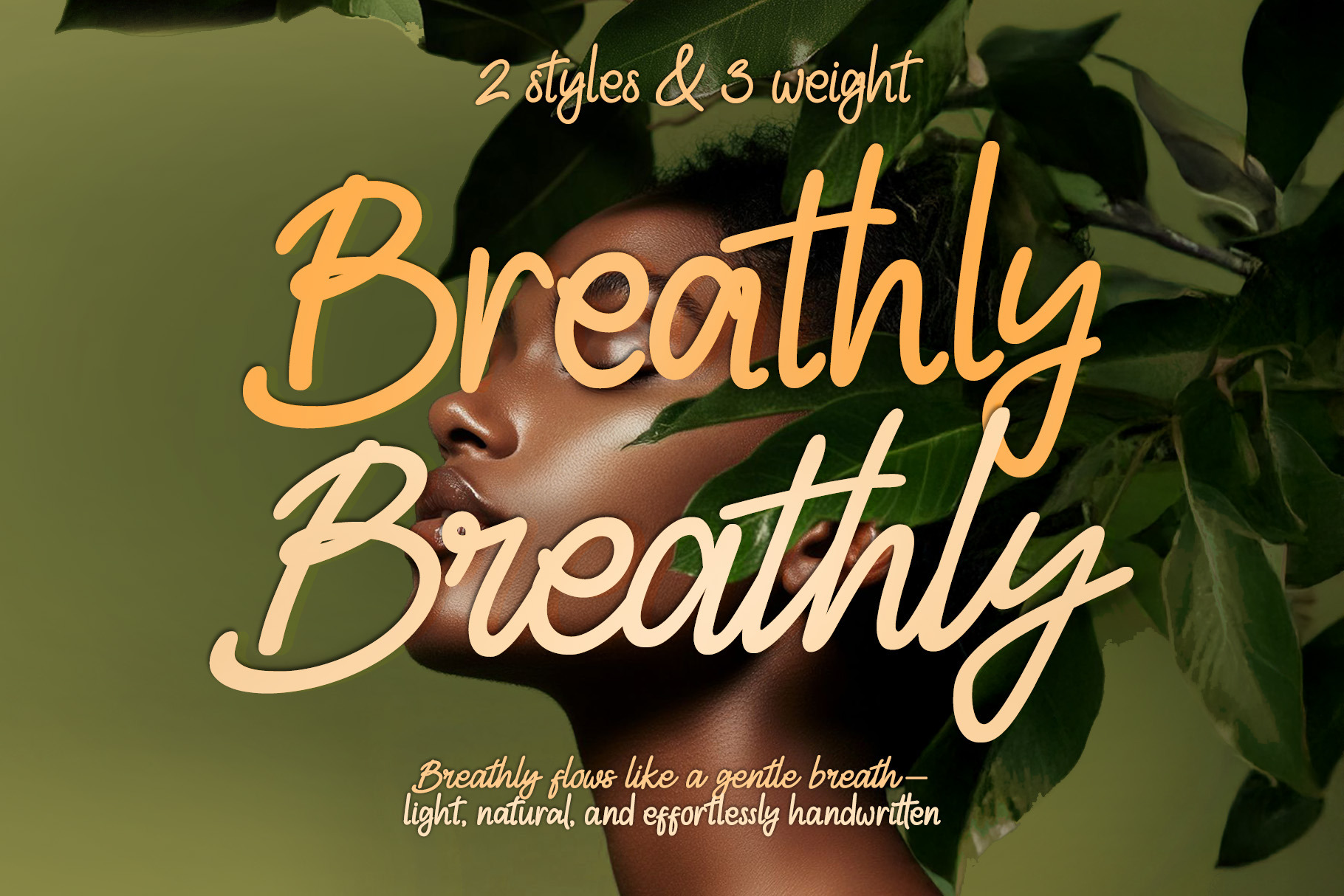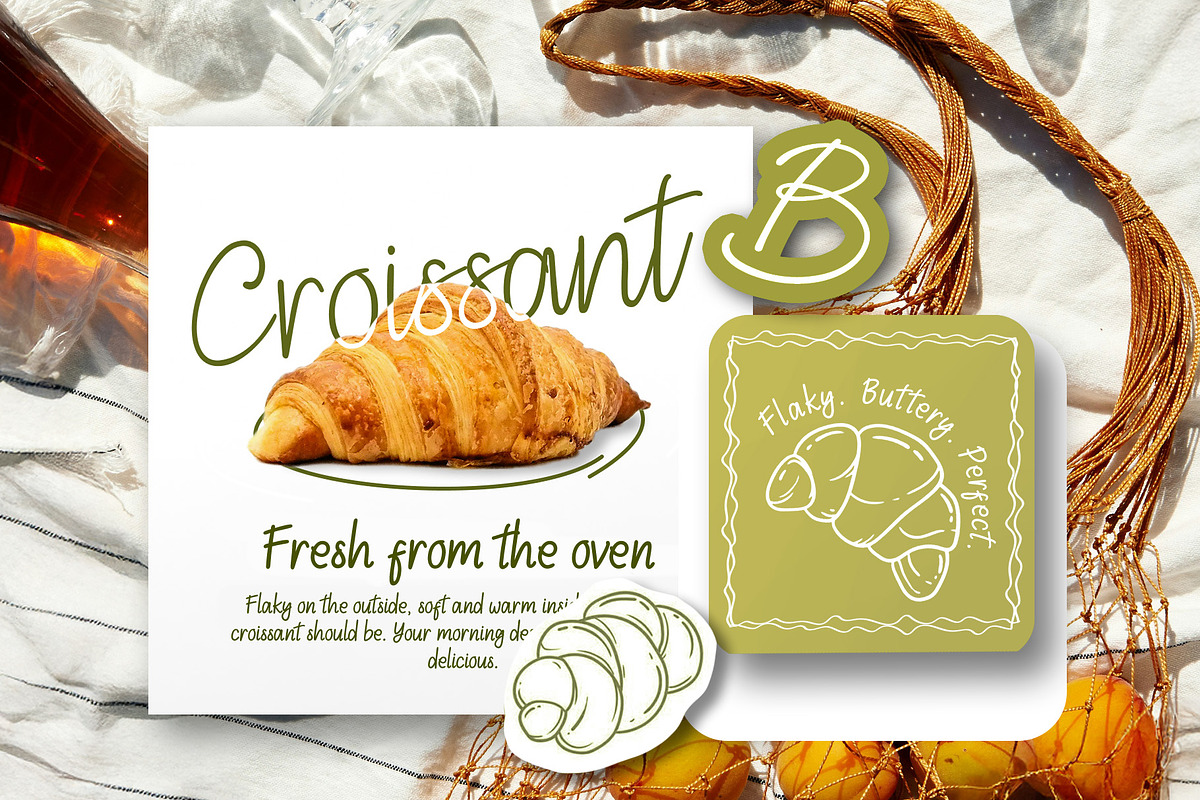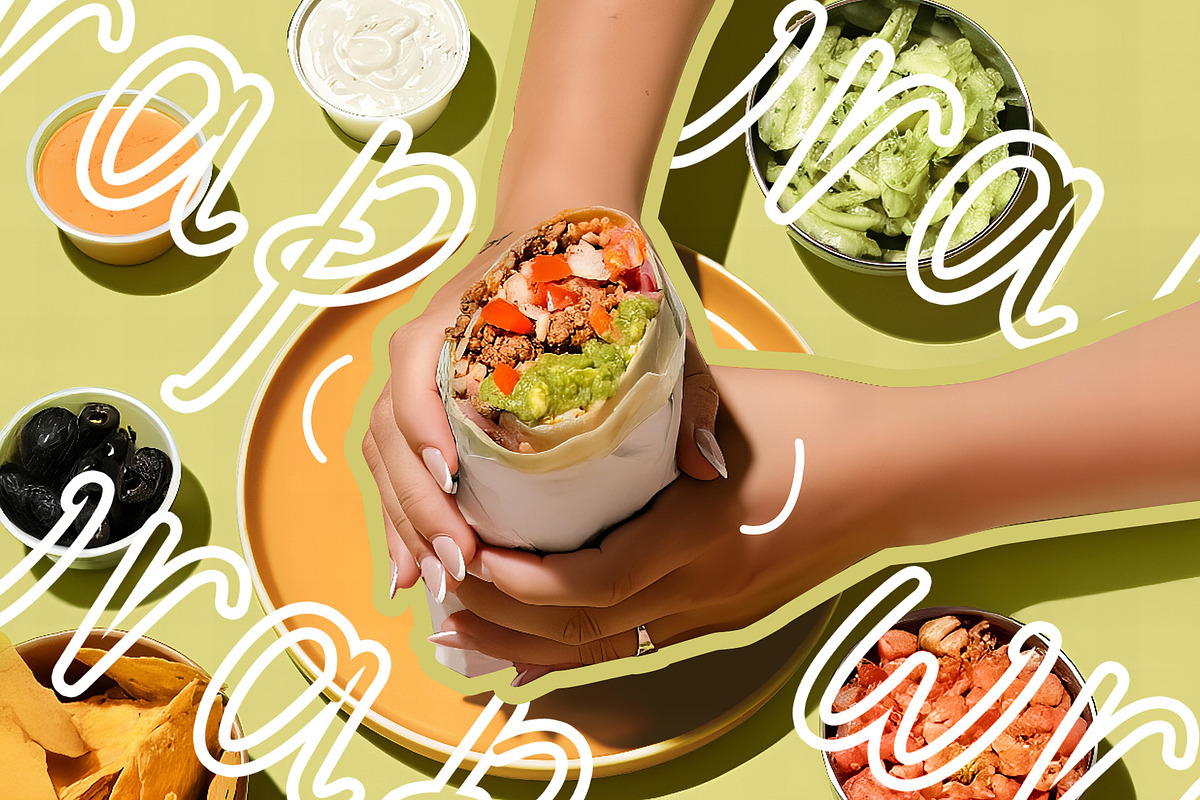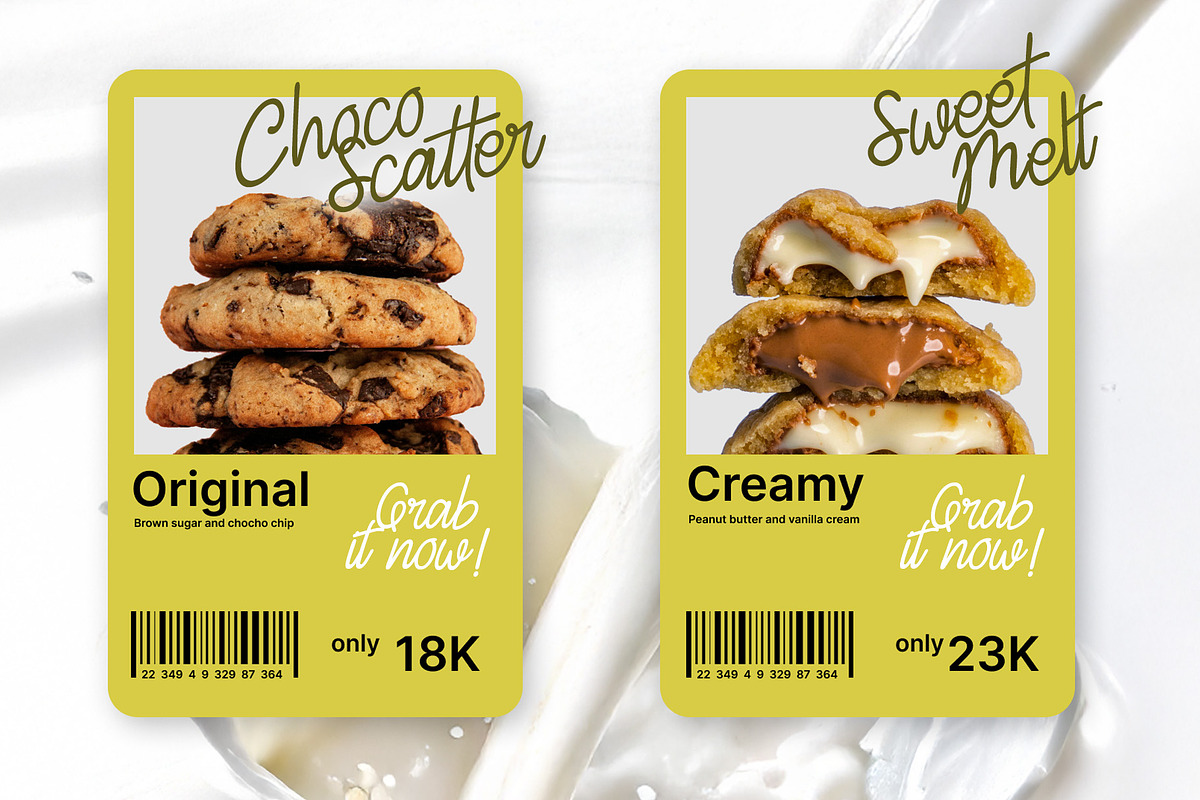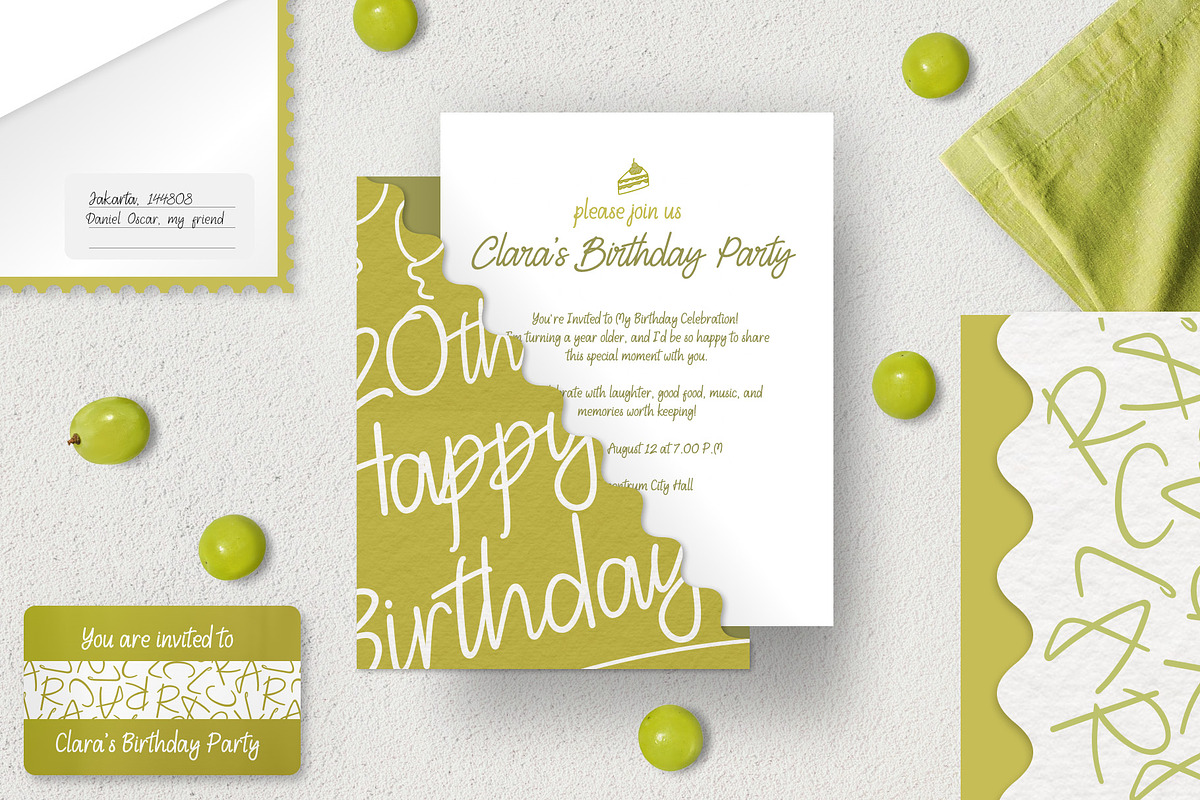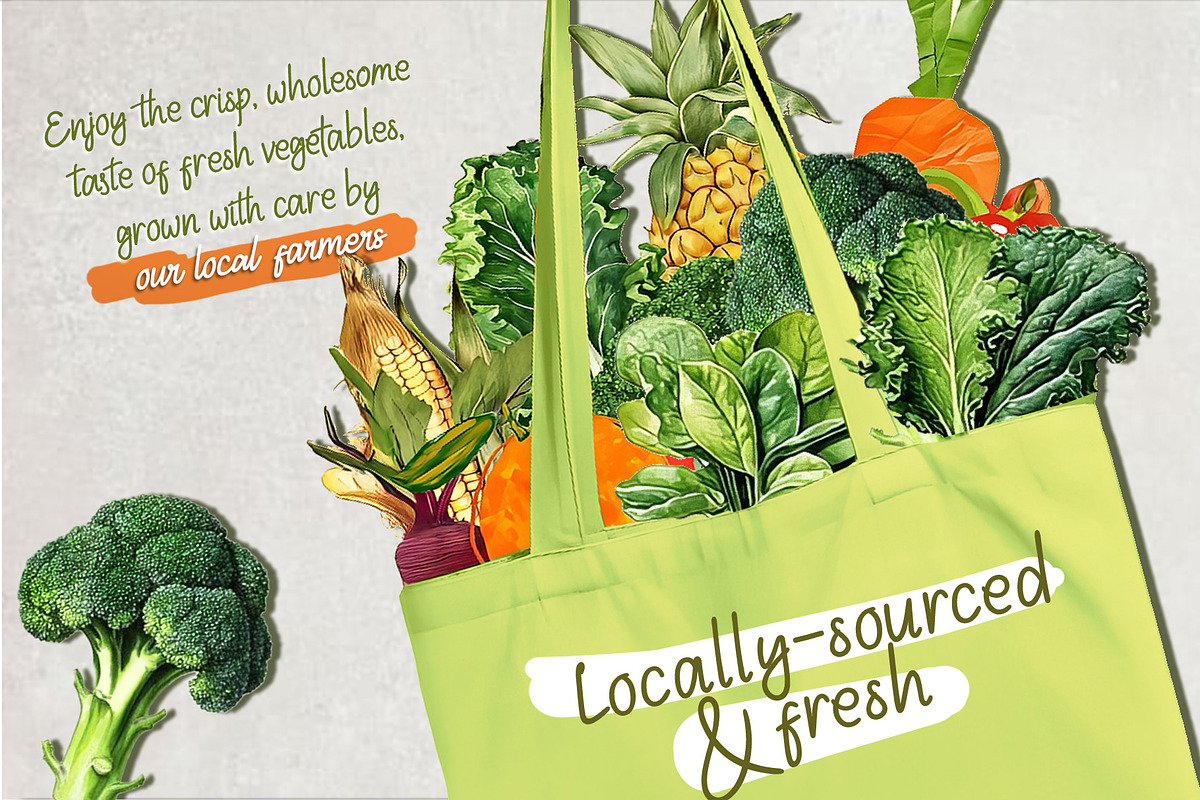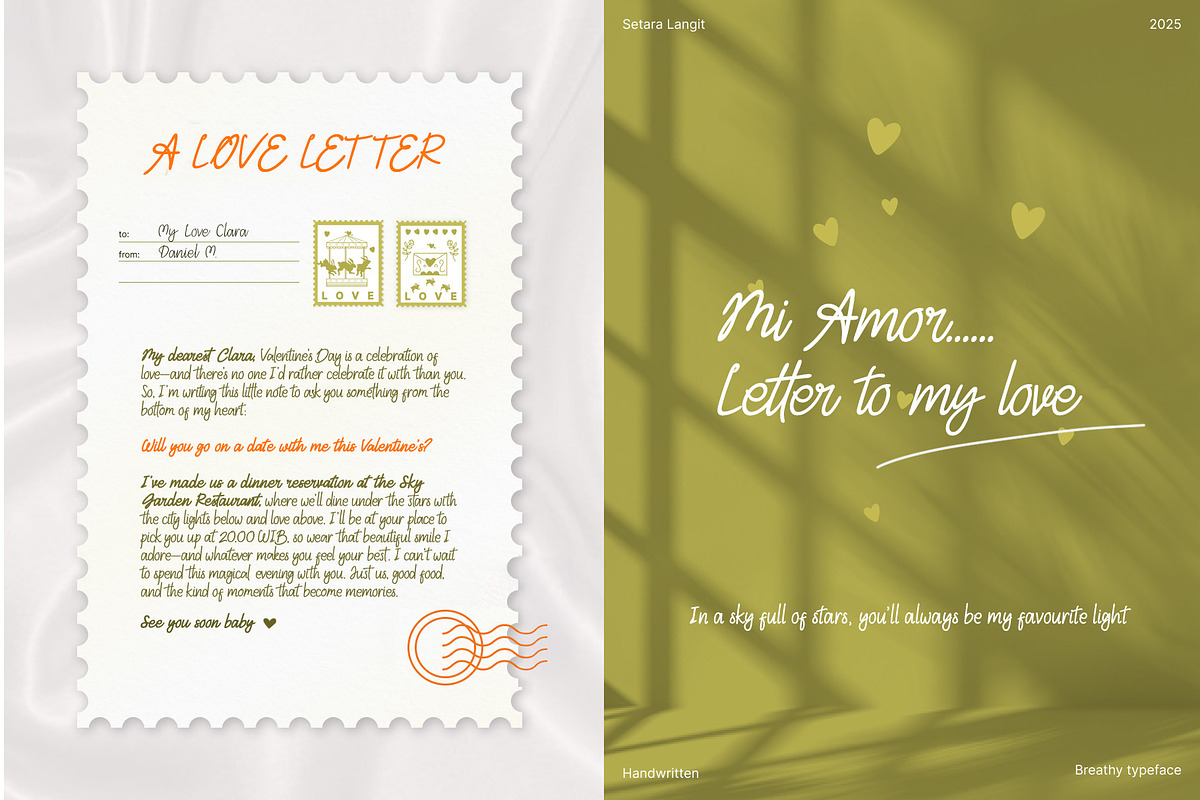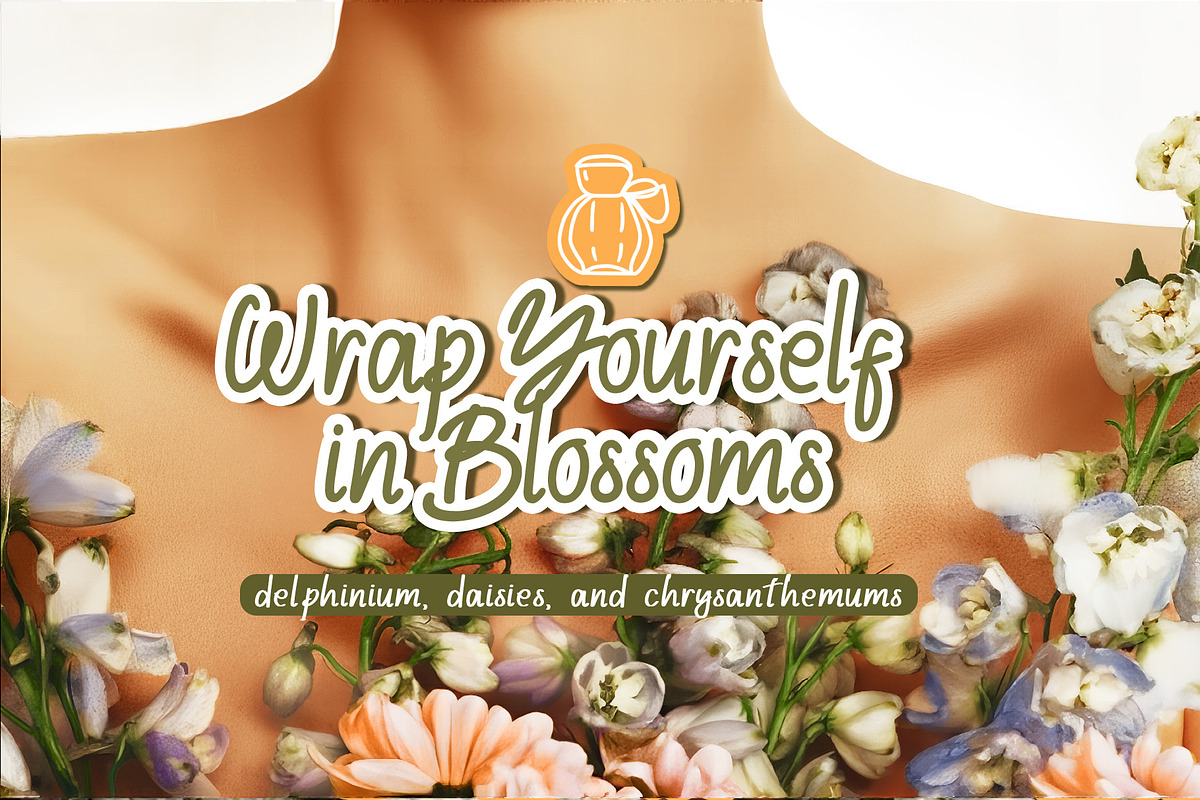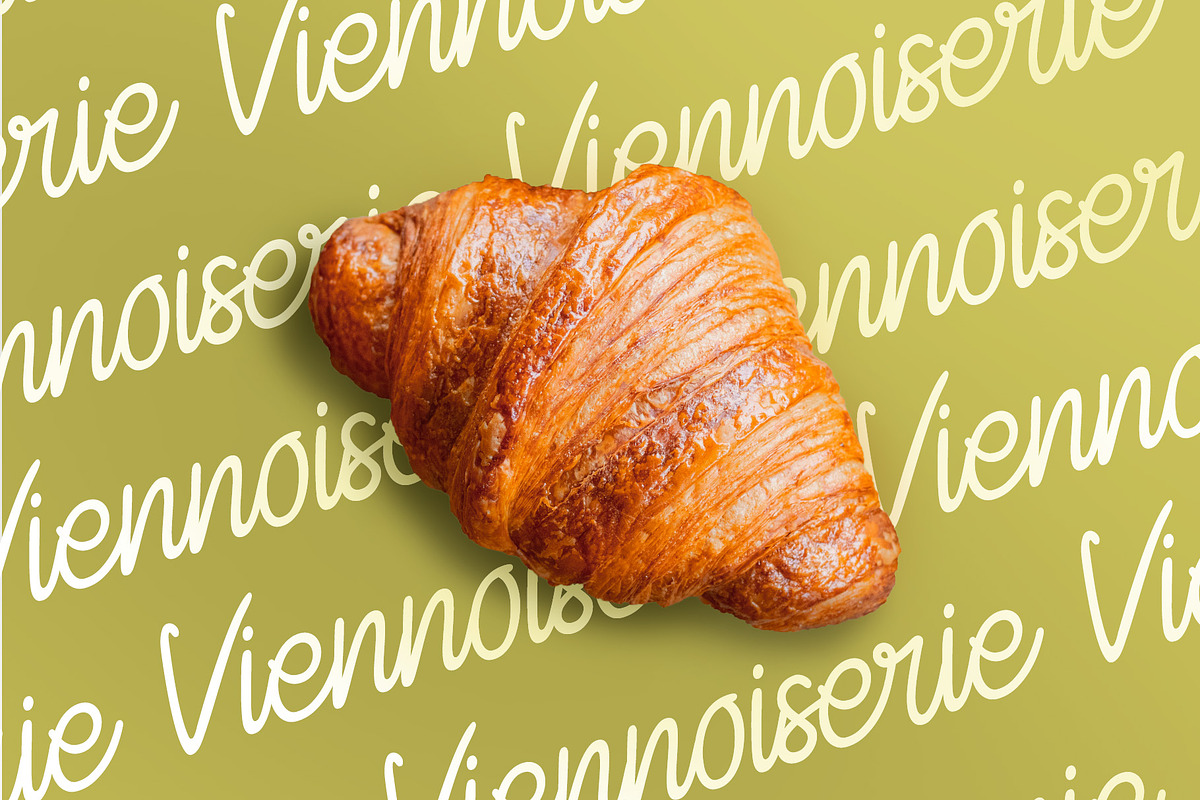
Breathly - Font Duo
Breathly is a refined handwritten and script font duo inspired by the natural rhythm of deep, mindful breathing. Just like a steady exhale, each stroke flows with calm confidence — soft, smooth, and effortlessly graceful.
This font duo blends two perfectly matched styles: a casual handwritten typeface and a flowing casual script. Together, they create a harmonious balance between playfulness and elegance, making it a versatile choice for various creative needs.
Whether you're designing brand identities, social media graphics, wedding invitations, lifestyle visuals, or heartfelt quotes, Breathly adds a warm, personal touch. It's crafted for creators who value both beauty and clarity — where every word feels intentional and every letter breathes with life.
Let your words exhale with grace. Let them speak with Breathly.